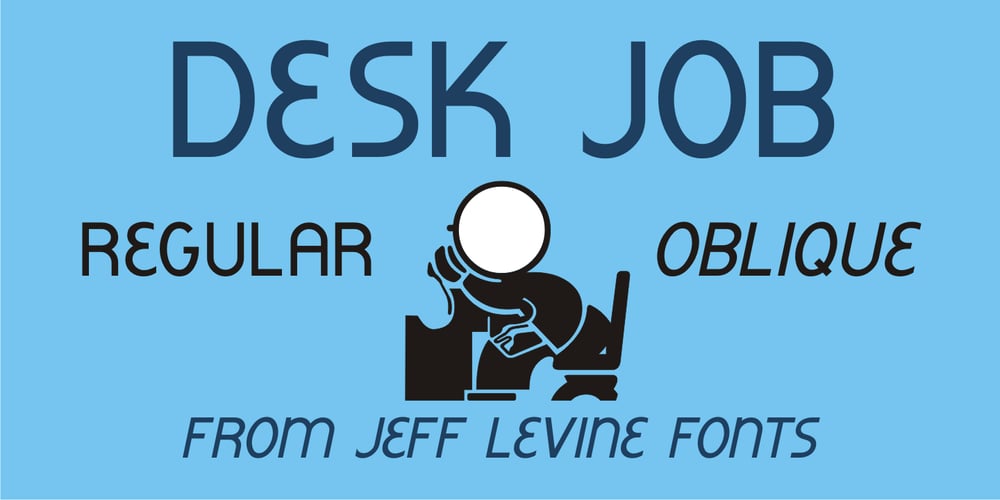
Desk Job JNL
Desk Job JNL font
Desk Job JNL Font Family was designed by Jeff Levine and published by Jeff Levine. Desk Job JNL contains 2 styles and family package options. Desk Job JNL is an Art Deco-influenced typeface based on hand lettering found on the packaging of a vintage Hotchkiss No. 52 stapling pliers. The typeface is available in both regular and oblique versions.